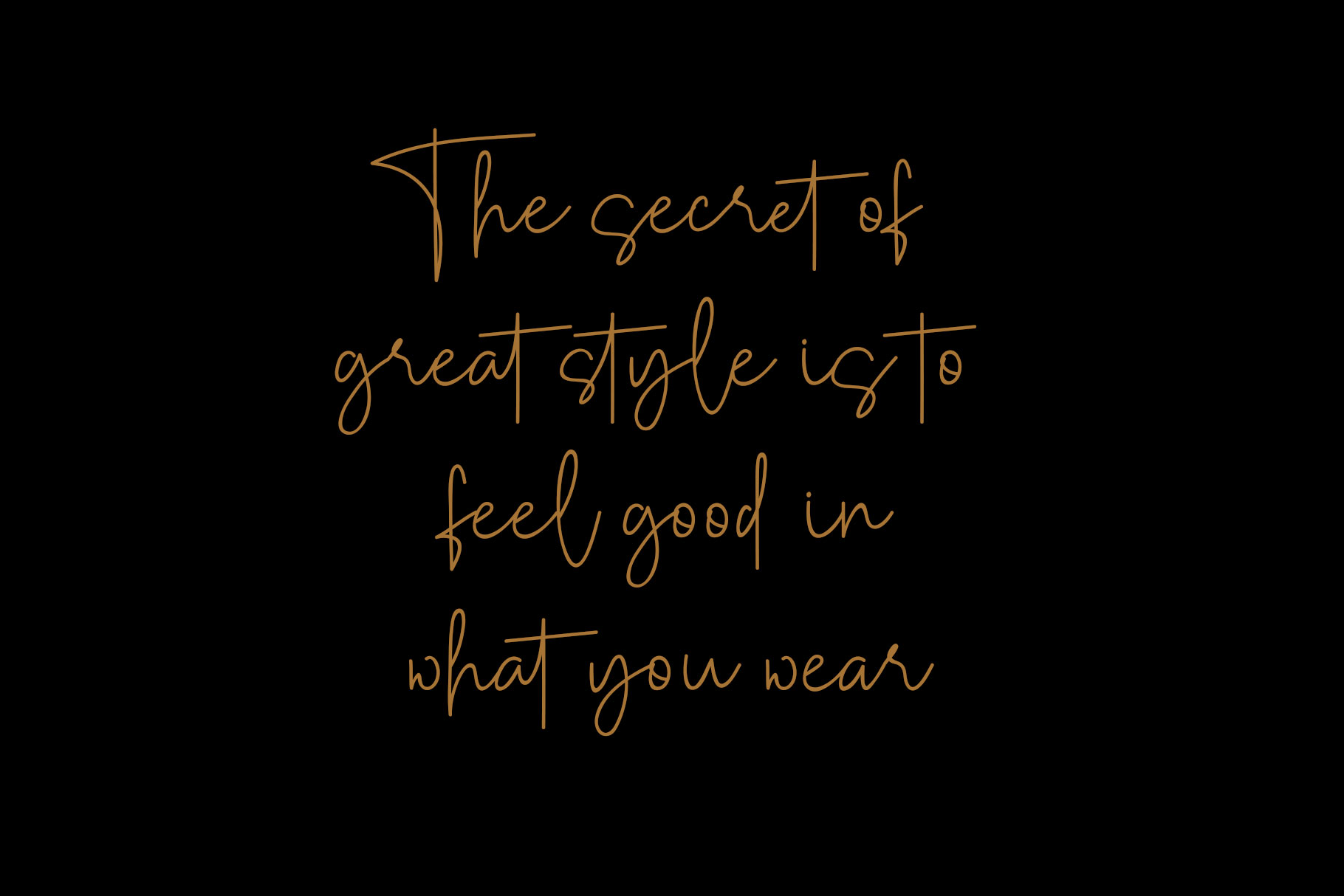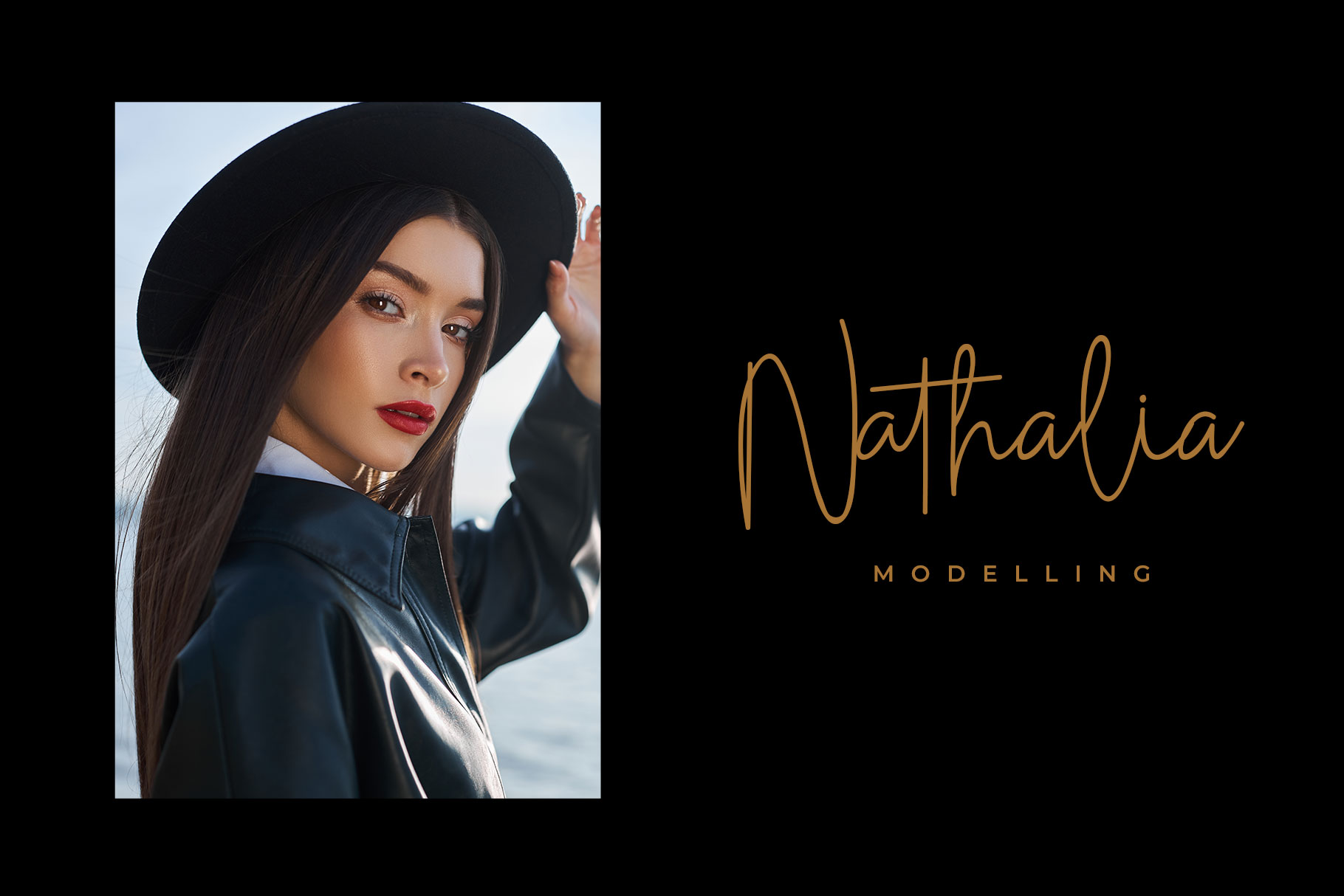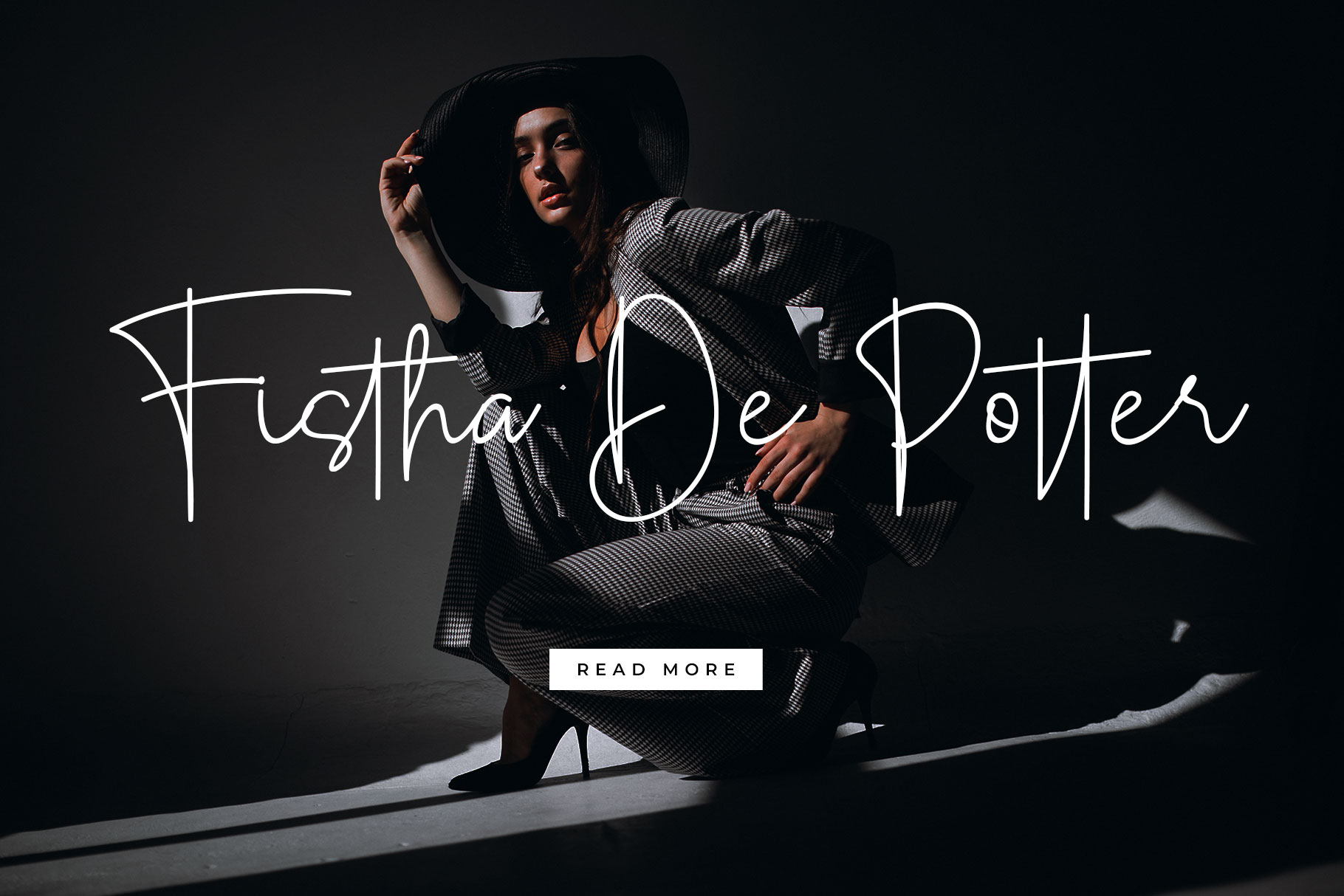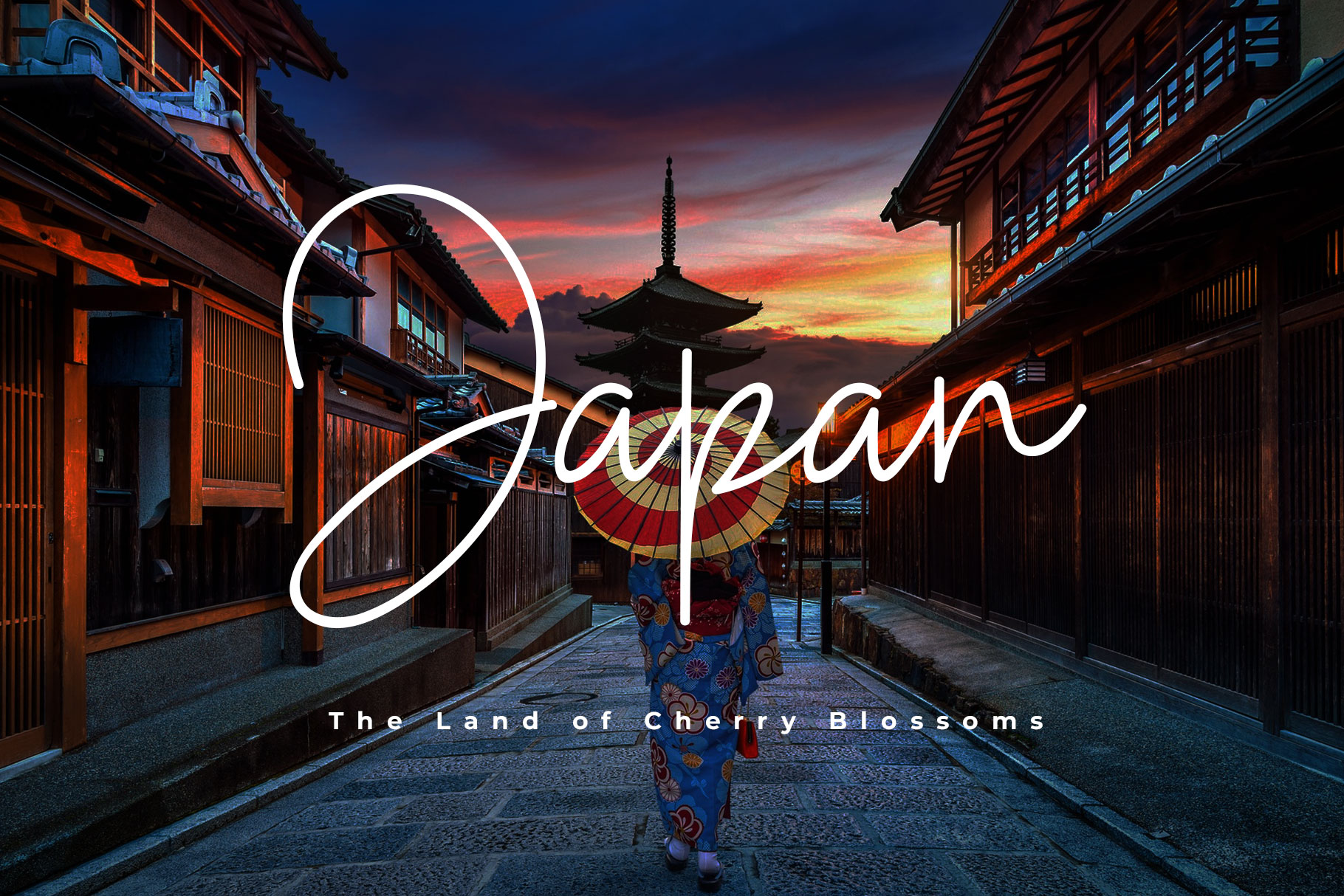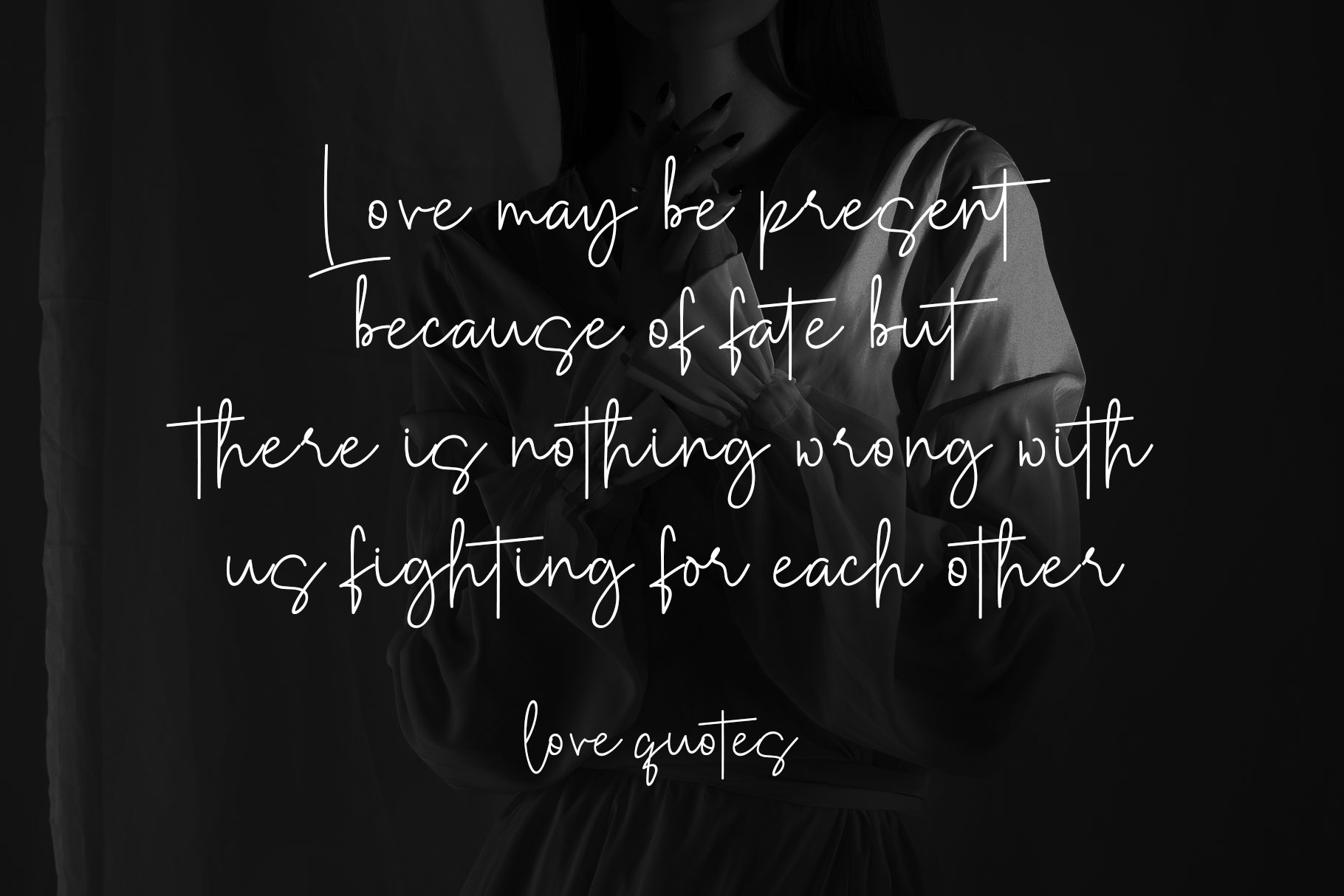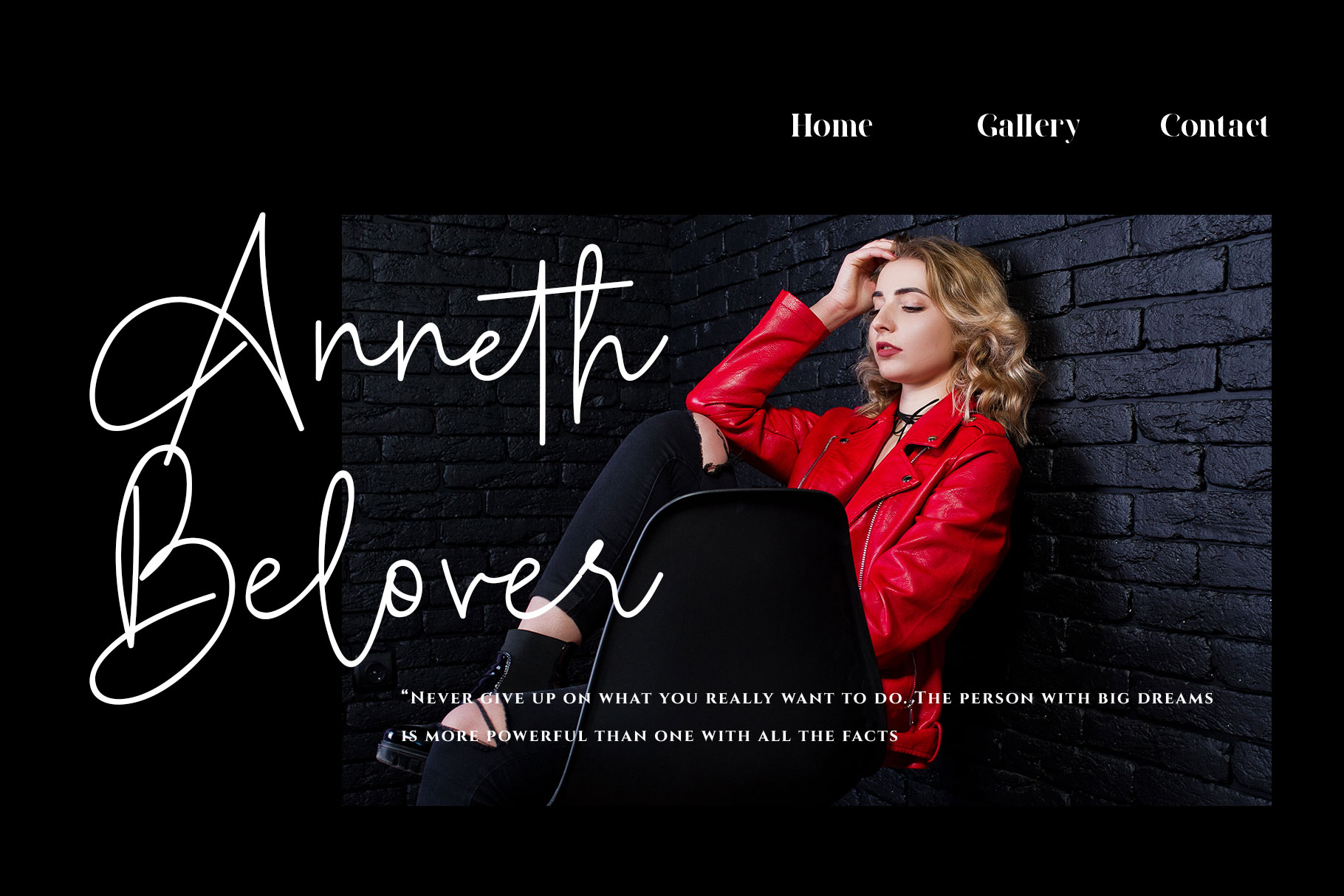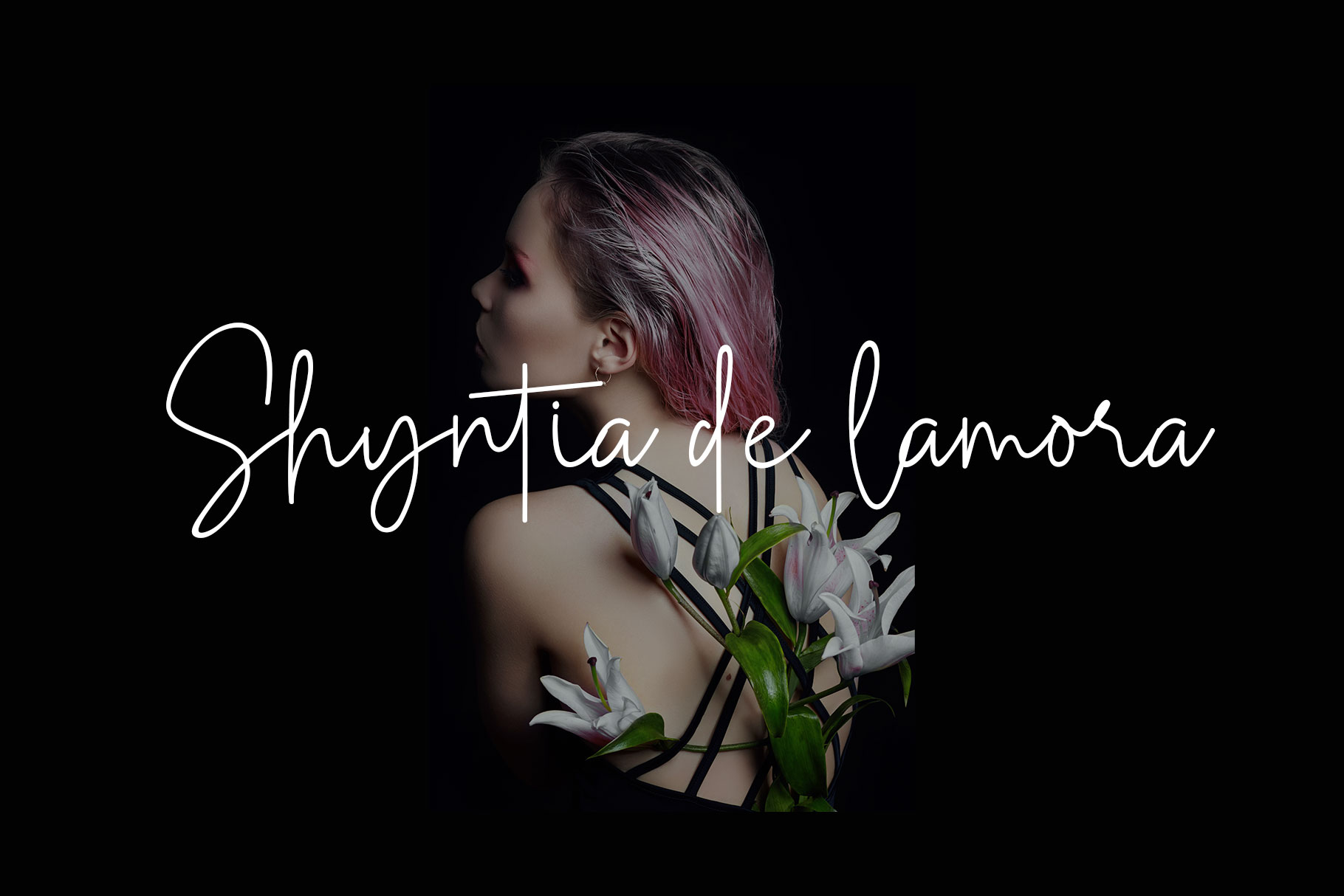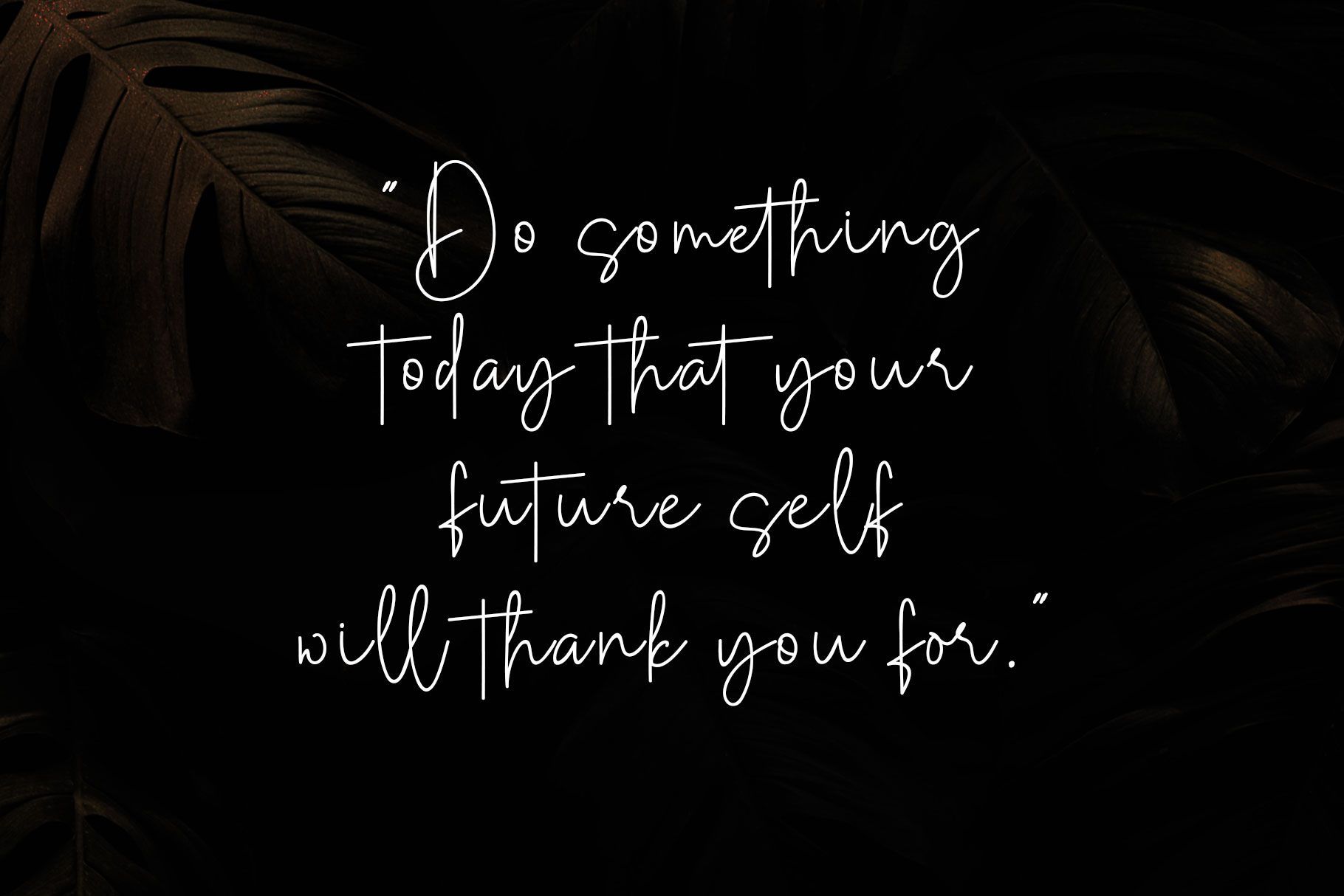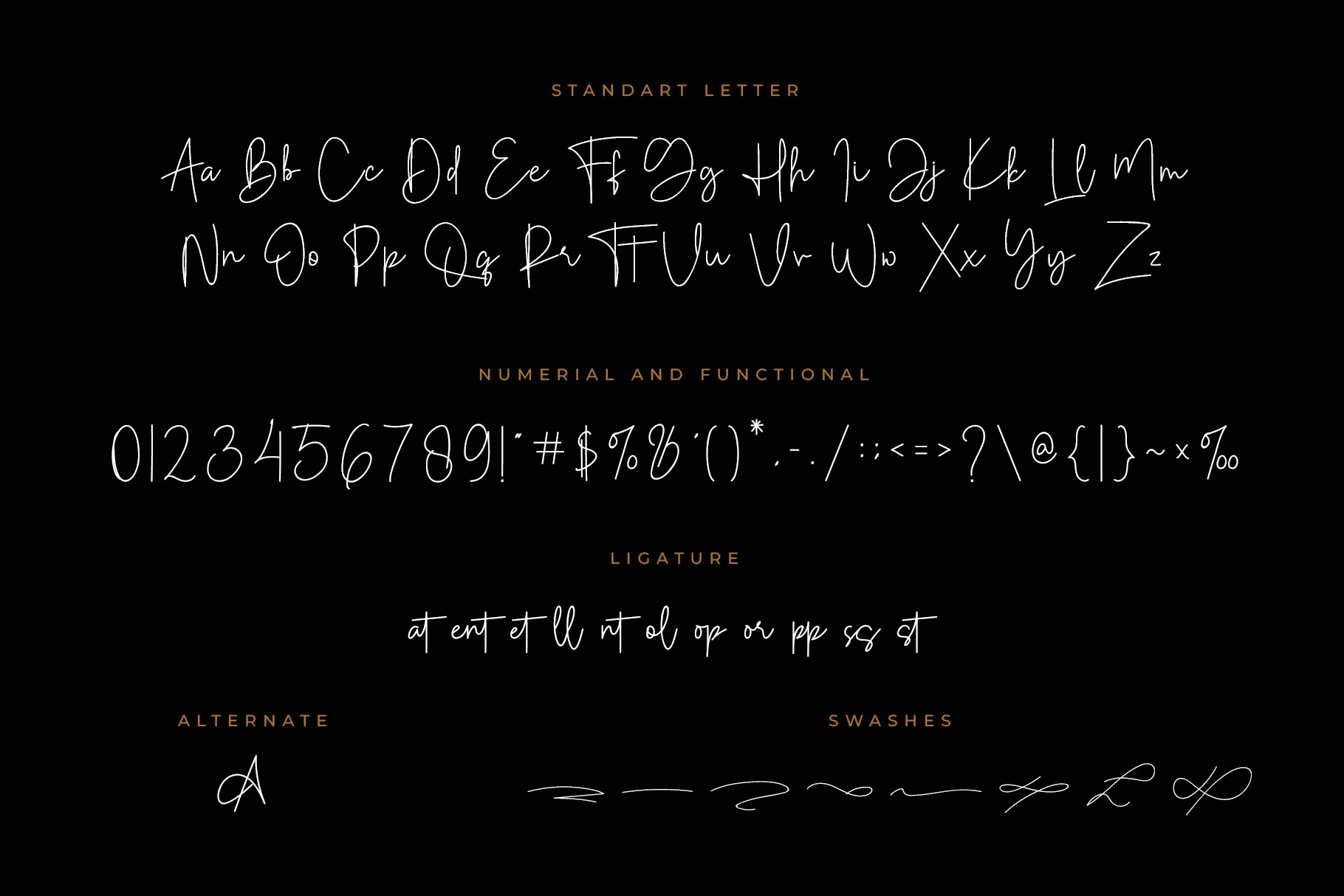
Golden Mind handwritten font
Golden mind is a Clean handwritten font and we keep this font looks natural, classy, readable, stylish, catchy and easy to use. Golden mind is the great choice for watermark on photography, signature or signature logo design, quotes, album cover, business card, and many other design project. Golden mind is here to make your work to high level!!!
• Standart letter A-Z and a-z
• Ligatures and alternate
• Swashes